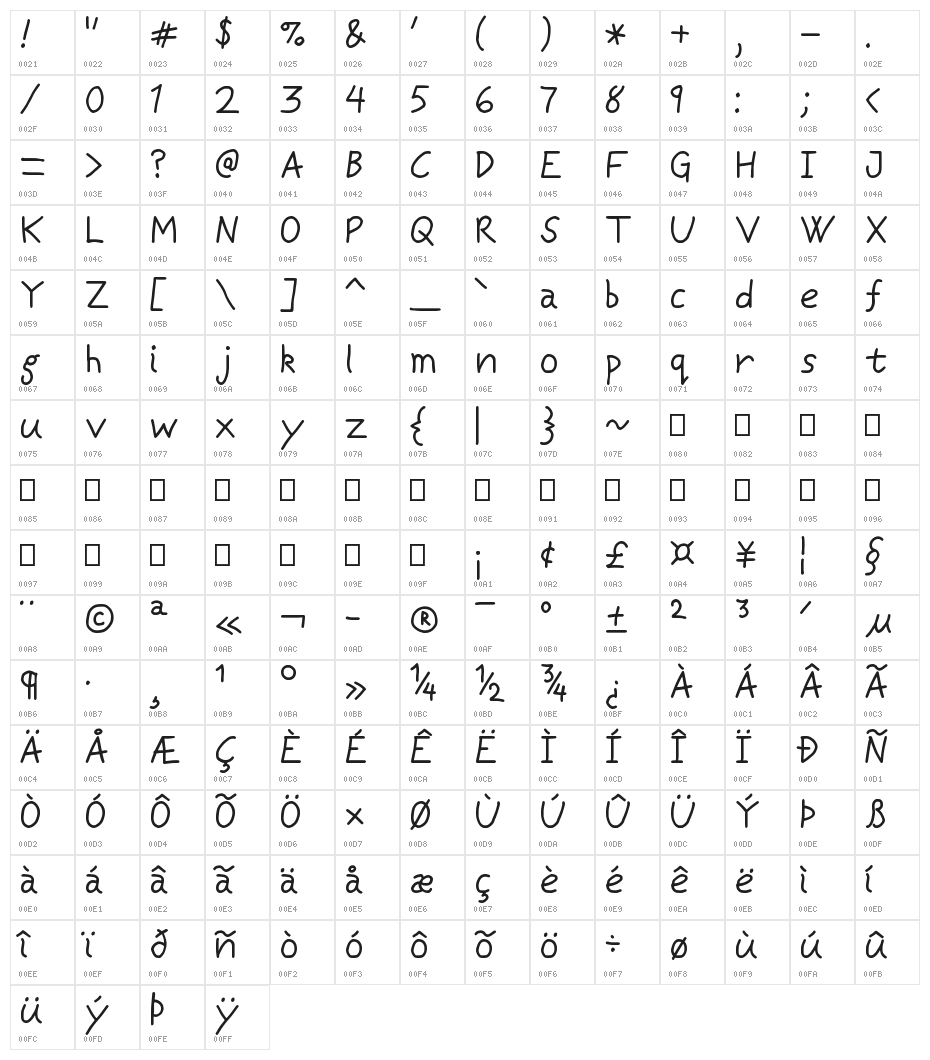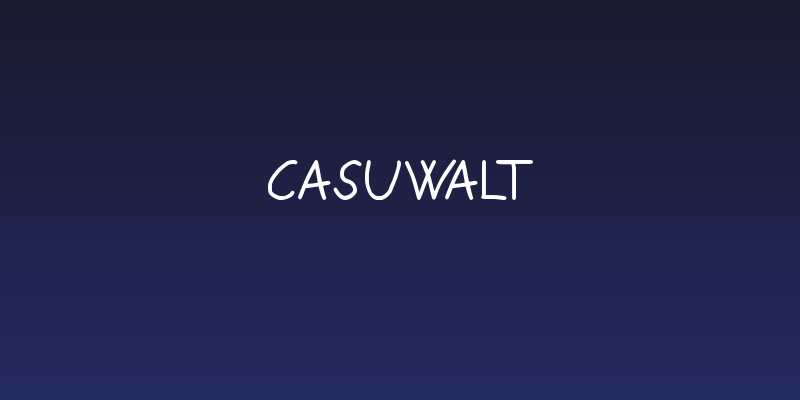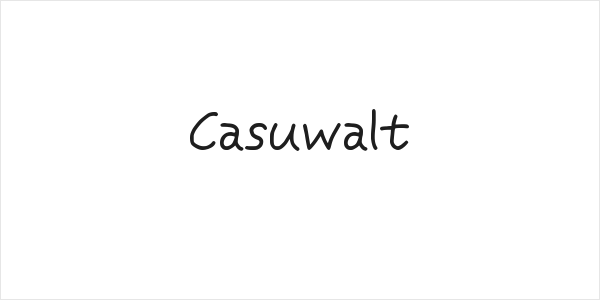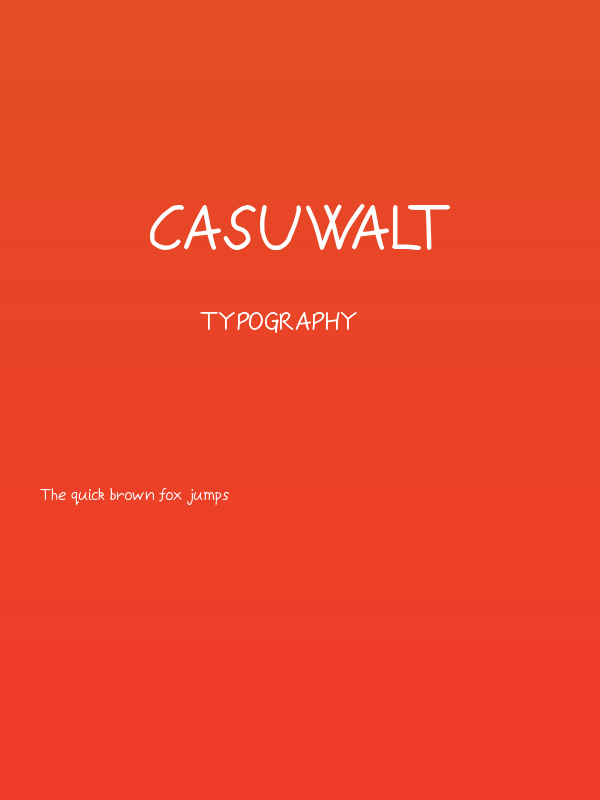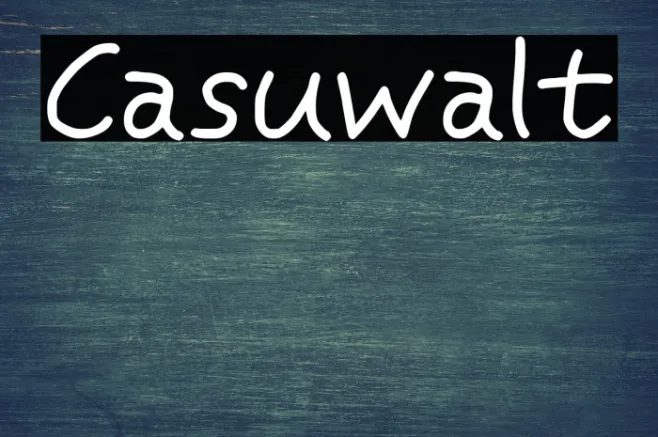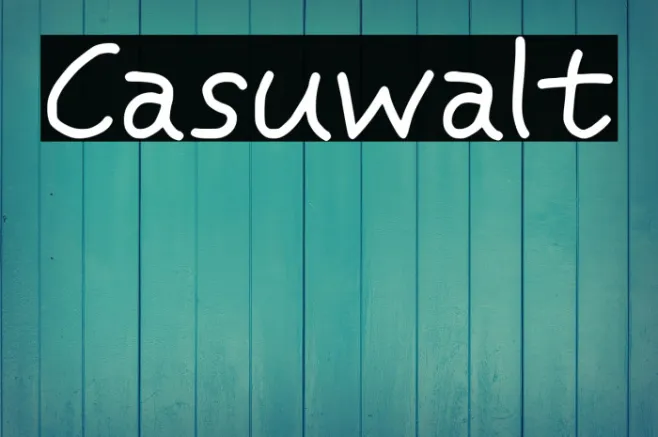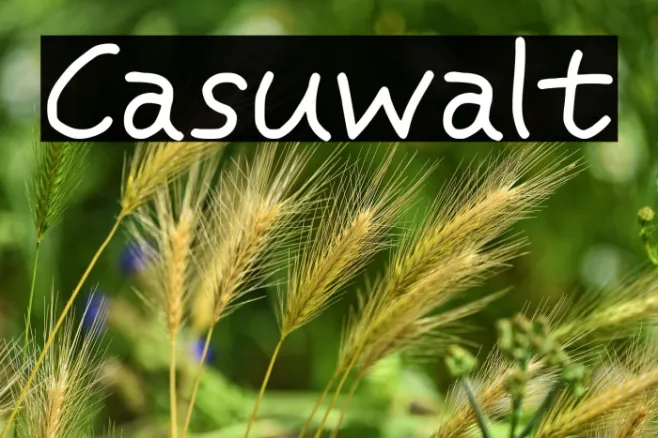
Casuwalt Font
Casuwalt Description
This font features a playful and casual handwritten style, characterized by its smooth, rounded edges and slightly irregular letterforms that give it a friendly and approachable appearance. The uppercase letters maintain a consistent height, while the lowercase letters exhibit a natural flow with varied ascenders and descenders. The numerals are clear and legible, matching the overall informal aesthetic. Special characters are well-integrated, maintaining the font's cohesive look. This font is perfect for projects that require a personal touch, such as invitations, greeting cards, or informal branding.